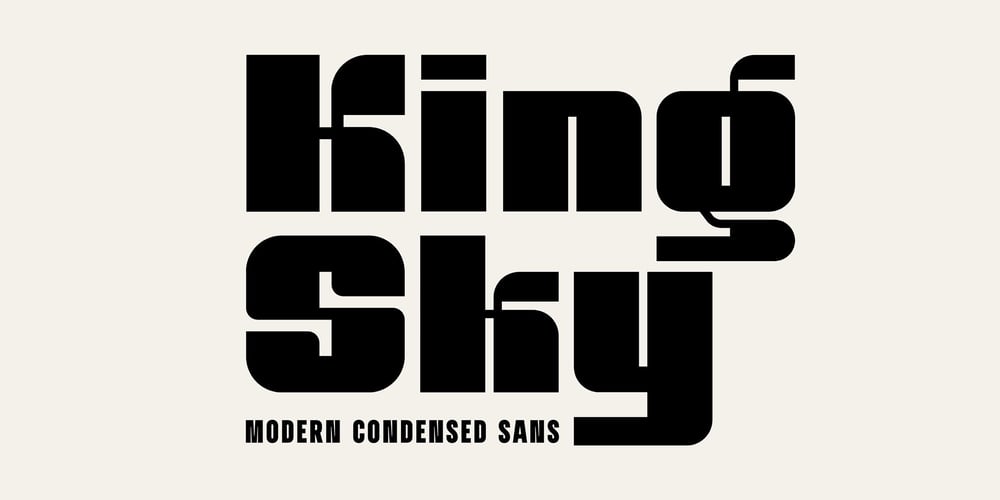
King Sky Font Family was designed by Graphicxell and published by Graphicxell. King Sky contains 1 styles and family package options. inspired by the famous minimalist logo perfect for the purposes of designing templates, brochures, videos, advertising branding, logos, invitation, layout design, elegant crafting, beauty design and otherWhat’s Included :+ Standard glyphs+ International Accent+ Works on PC & Mac+ Simple installationsAccessible in the Adobe Illustrator, Adobe Photoshop, Corel Draw.PUA Encoded Characters – Fully accessible without additional design software.Fonts include multilingual supportImage used : All photographs/pictures/vector used in the preview are not included, they are intended for illustration purpose only.Thank You